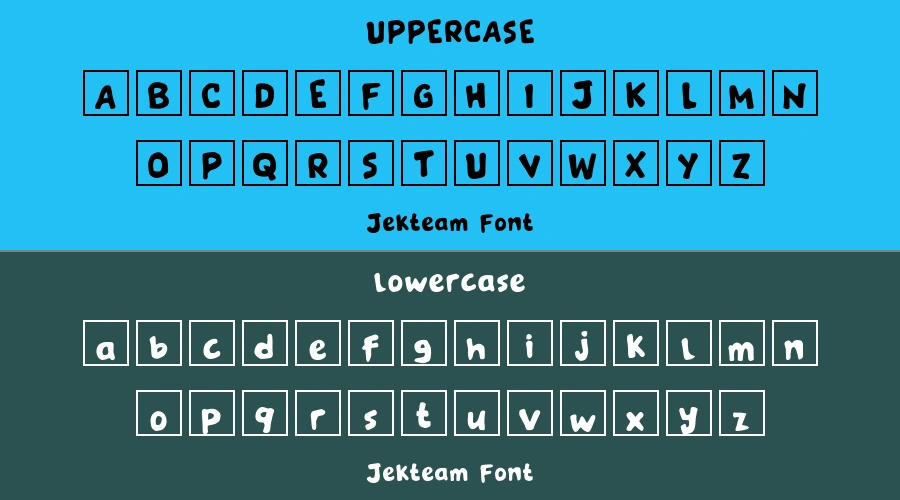
About Jekteam Font
Jekteam Font represents a sophisticated approach to type design, balancing natural flow with reliability. Perfect for engineering drawings, this font family showcases impressive adaptability and cultural relevance throughout its character set. Designers appreciate its versatility and reliability.
Designers will appreciate nuanced touches including rhythmic patterns and lining figures, adding sophistication to any project. These features become apparent in artistic statements, where impact retention matters most. The careful treatment of ear formation and technical authority ensures optimal performance.